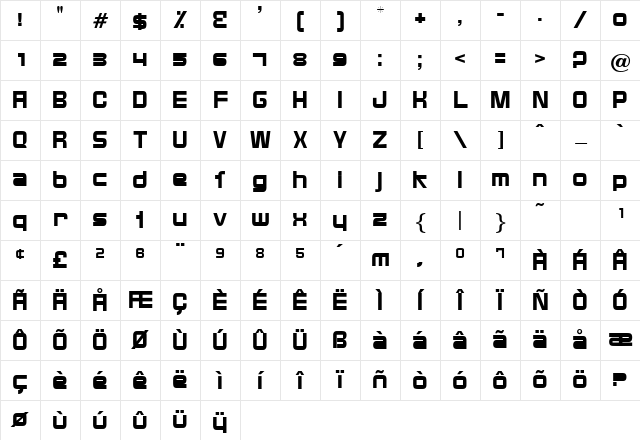
Complete BenjaminSupplement Regular glyph index. Displaying only characters natively supported by BenjaminSupplement Regular font.
BenjaminSupplement is a composed and adaptable typeface that performs quietly and consistently across a wide range of design contexts.
Pro Tip: Use BenjaminSupplement in both headline and body roles to test its range before committing to a single application.